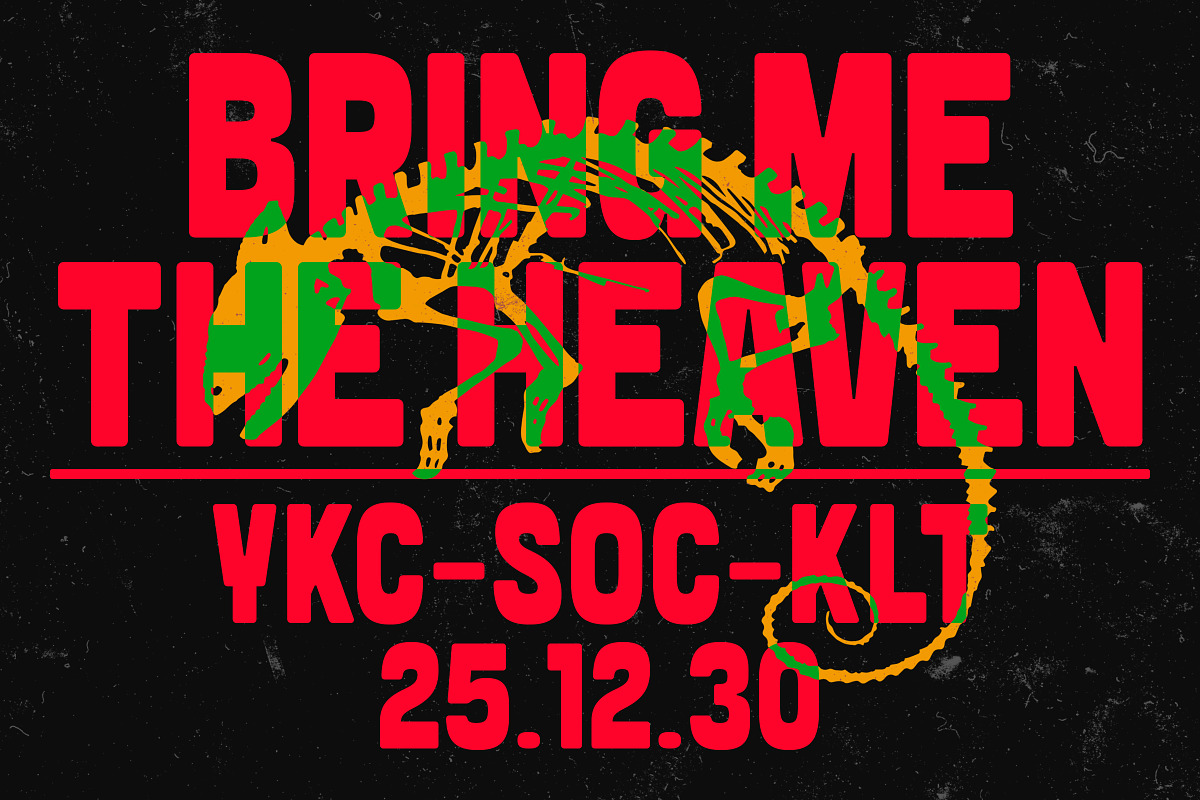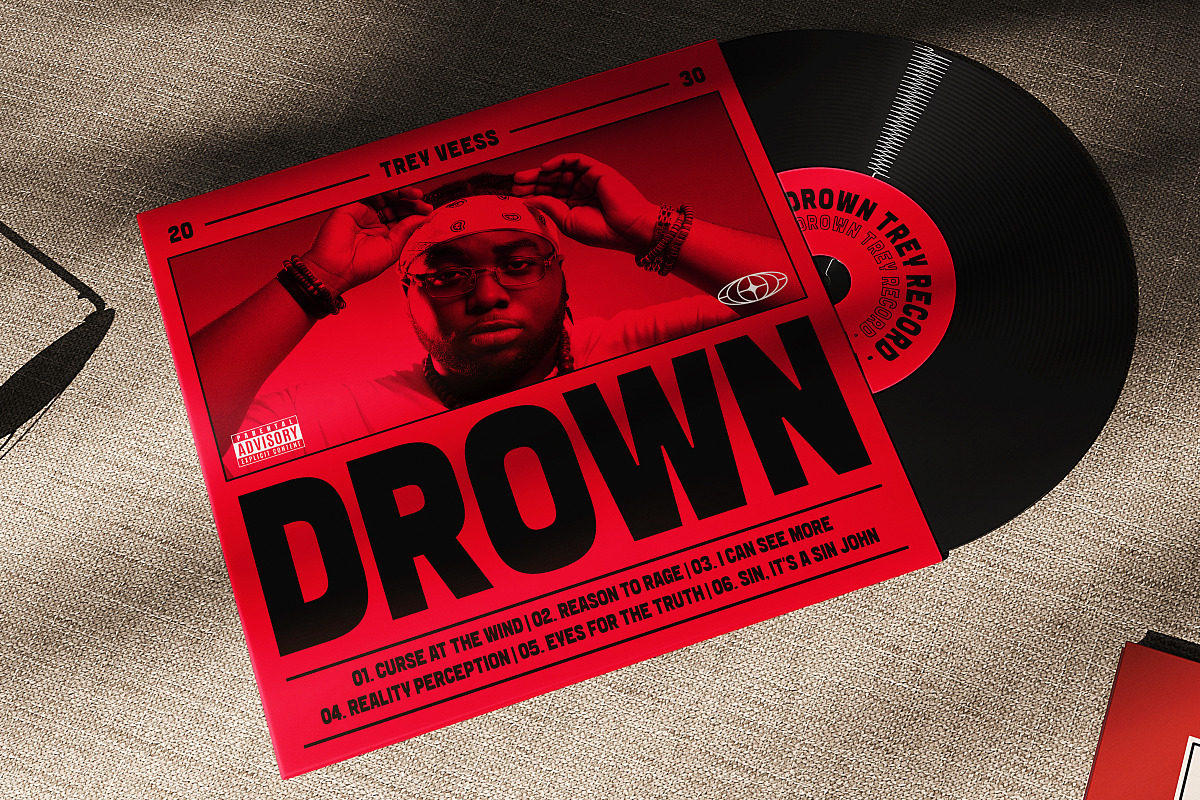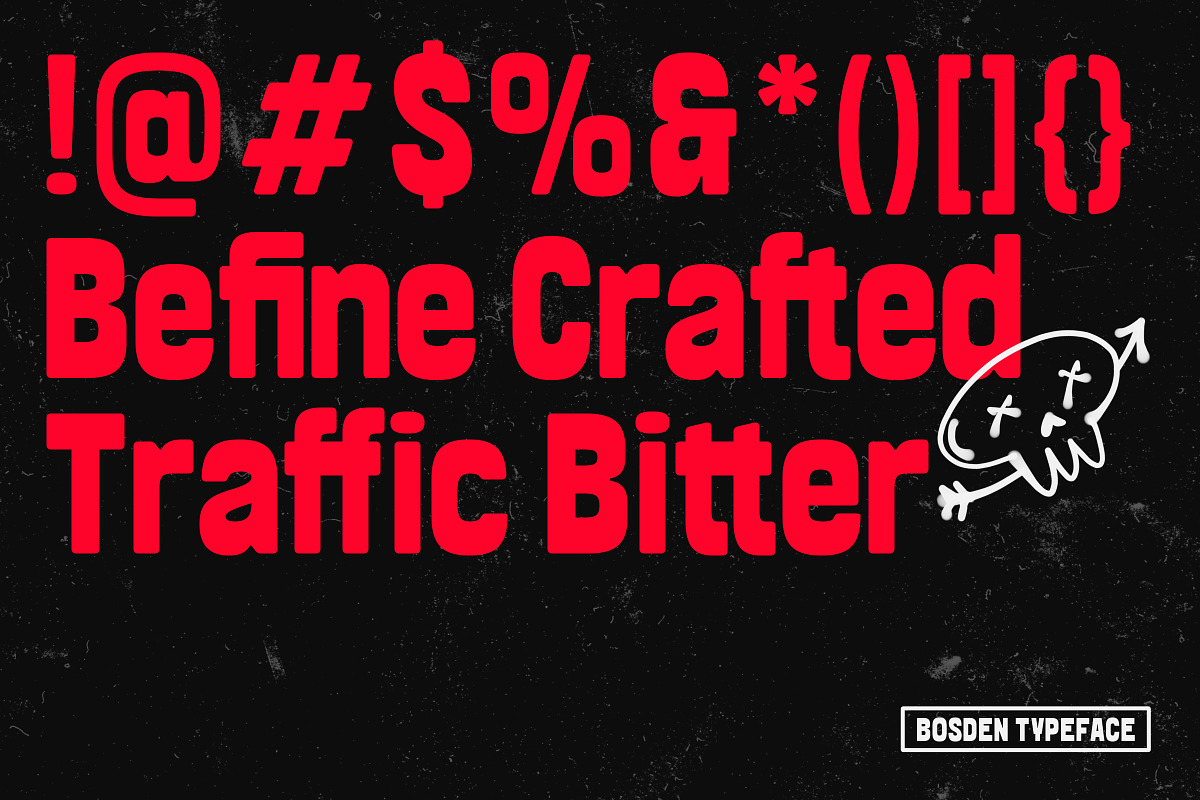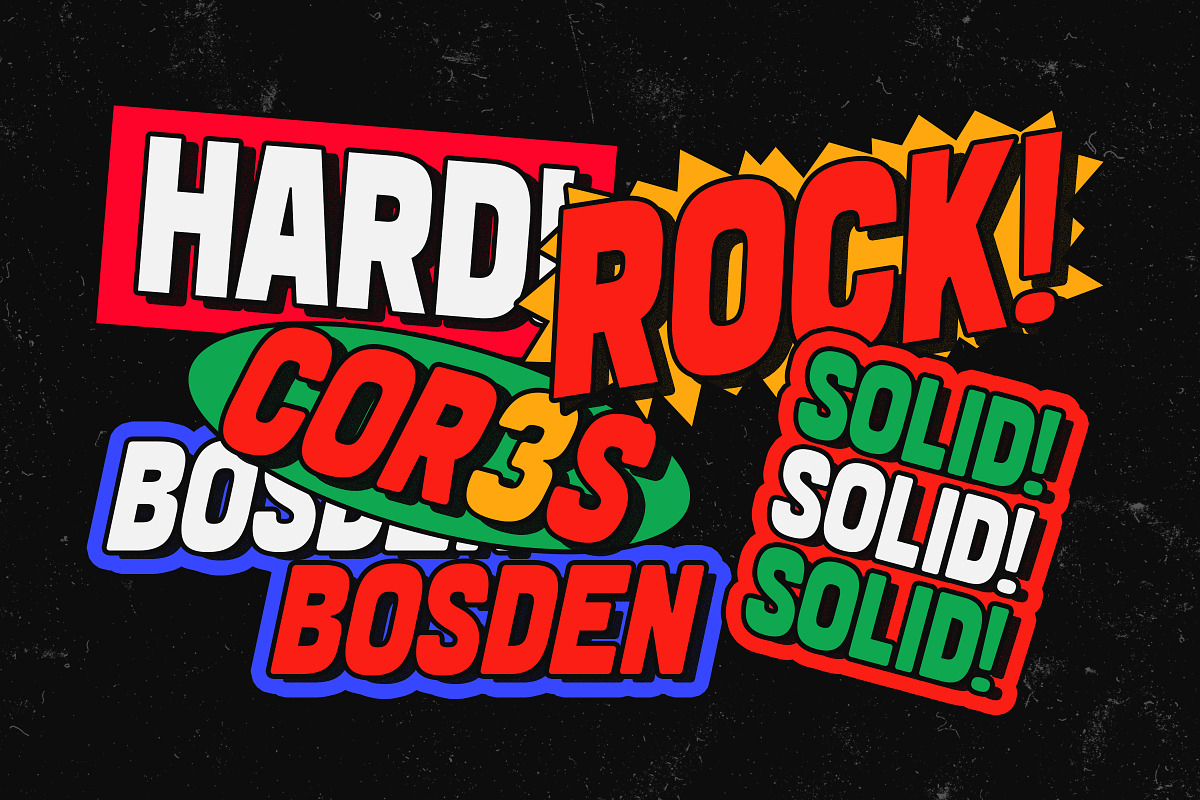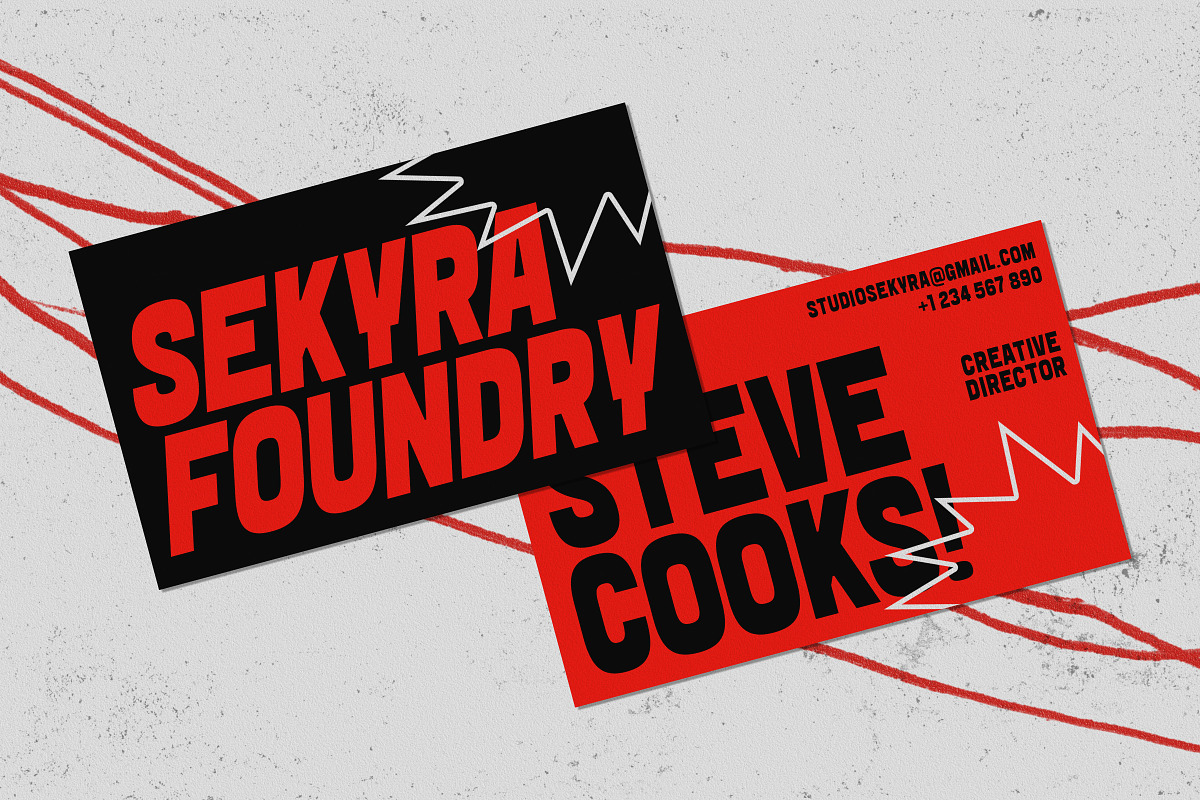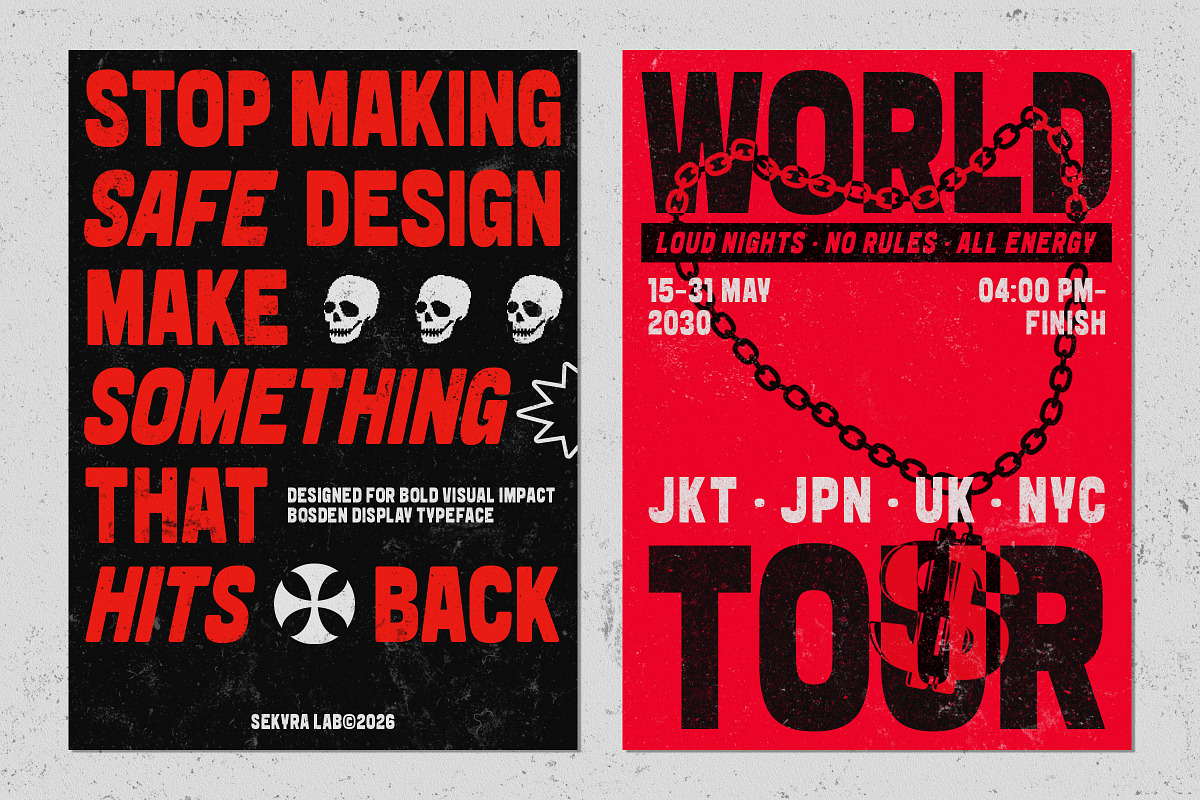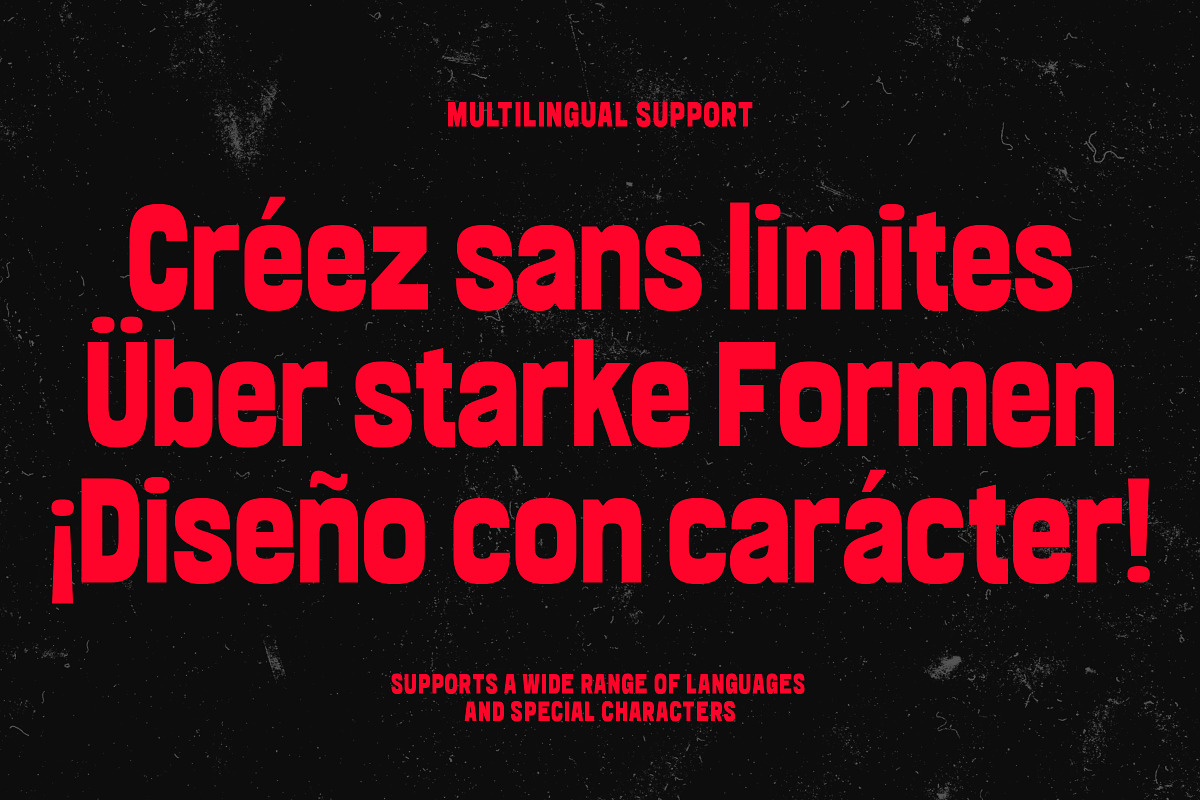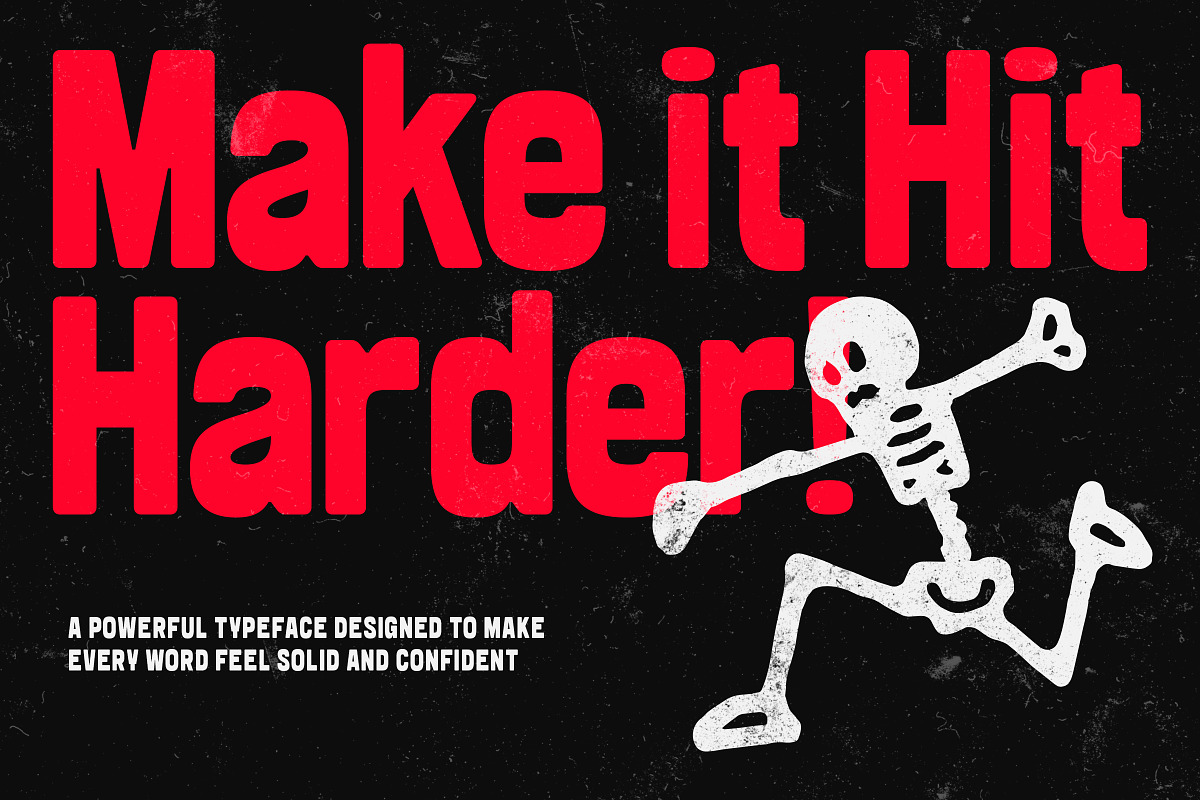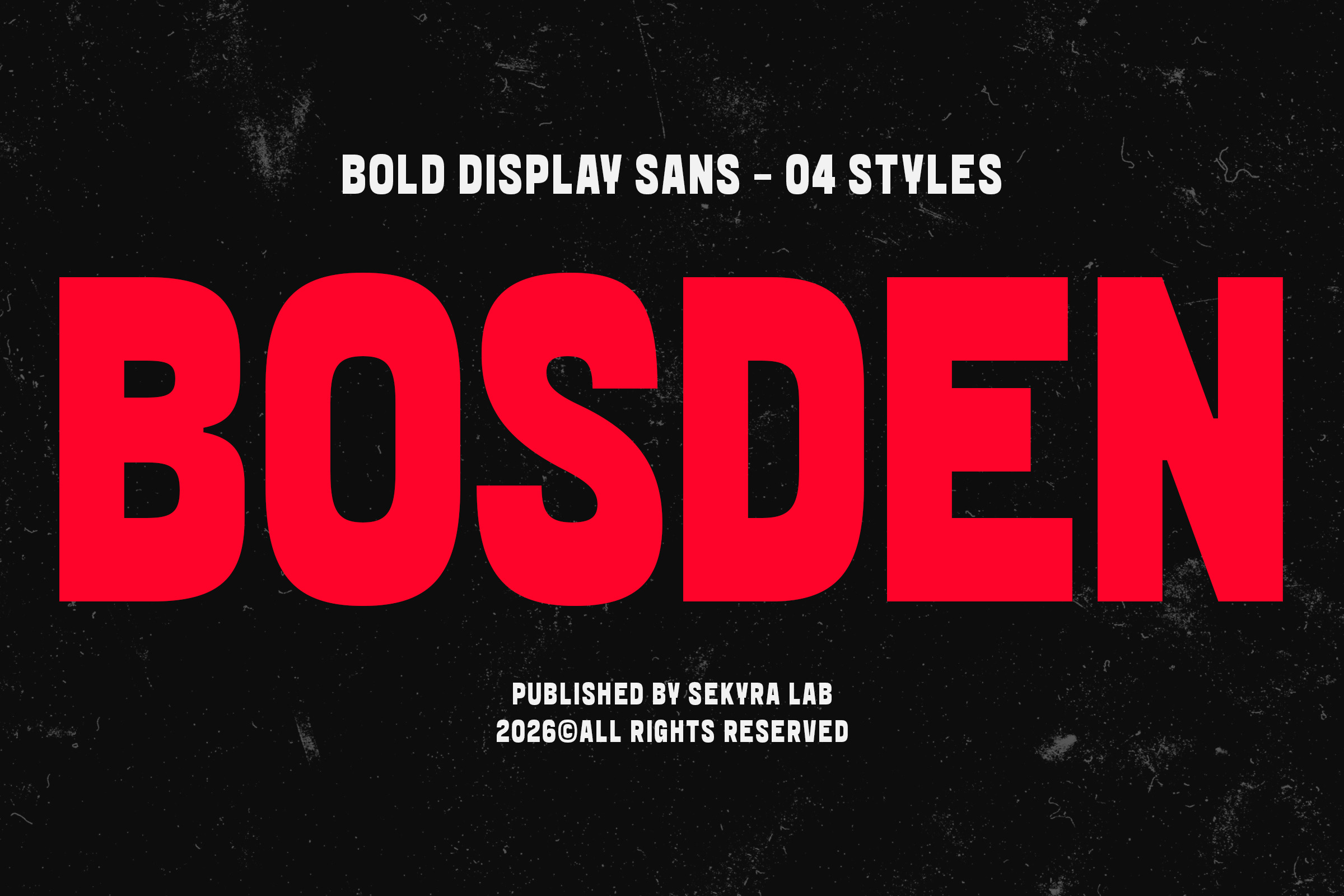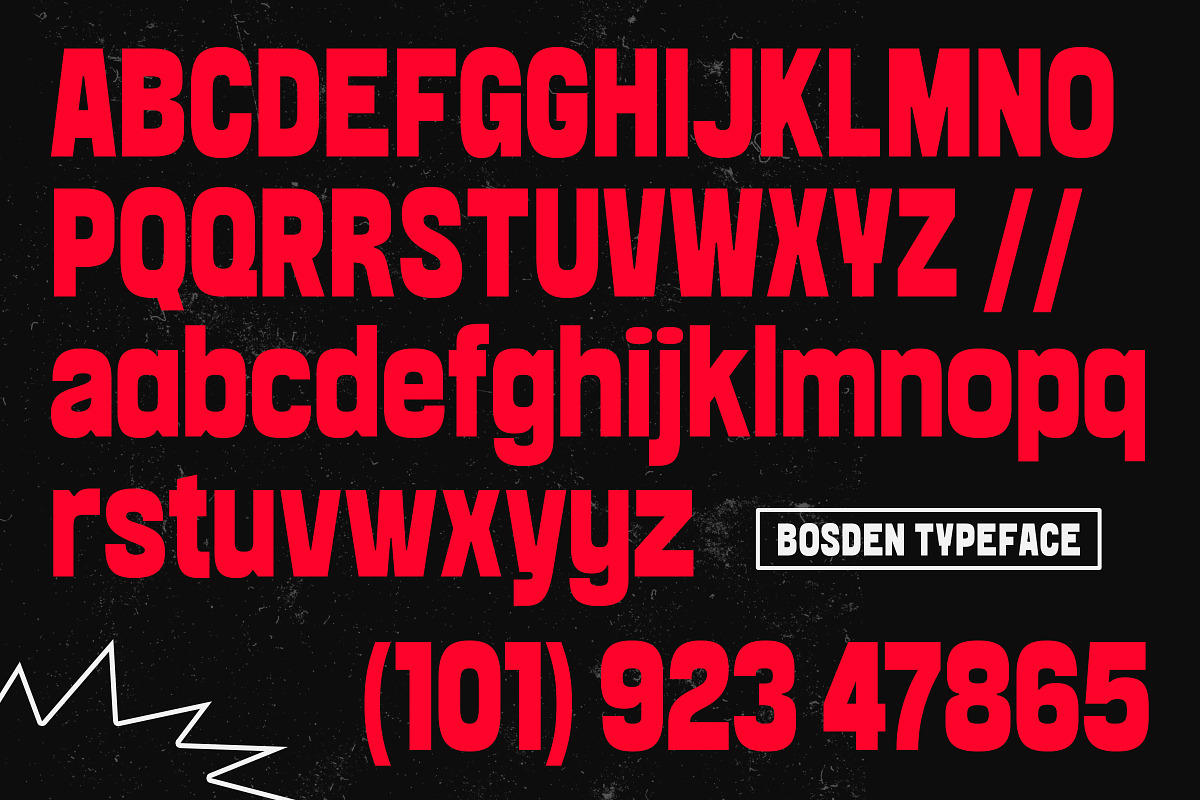
Bosden – Bold Display Sans Font
Bosden is a bold display sans serif font family crafted to deliver strong visual impact and confident typography. Its heavy structure, solid letterforms, and clean geometry make it perfect for designs that need to stand out instantly. Whether used in large headlines or striking compositions, Bosden ensures every word feels powerful and assertive.
Designed with versatility in mind, Bosden works seamlessly across modern, urban, and experimental design styles. From posters and branding to music covers and streetwear graphics, this typeface adapts easily while maintaining its bold personality. The combination of clean shapes and strong presence makes it ideal for creatives who want their designs to feel loud, solid, and unapologetic.
Key Features: • 4 Styles (Regular, Rounded, Oblique, Rounded-Oblique) • Multilingual Support • Uppercase & Lowercase Characters • Numbers & Punctuation • OpenType Features • File Formats: OTF, TTF, WOFF